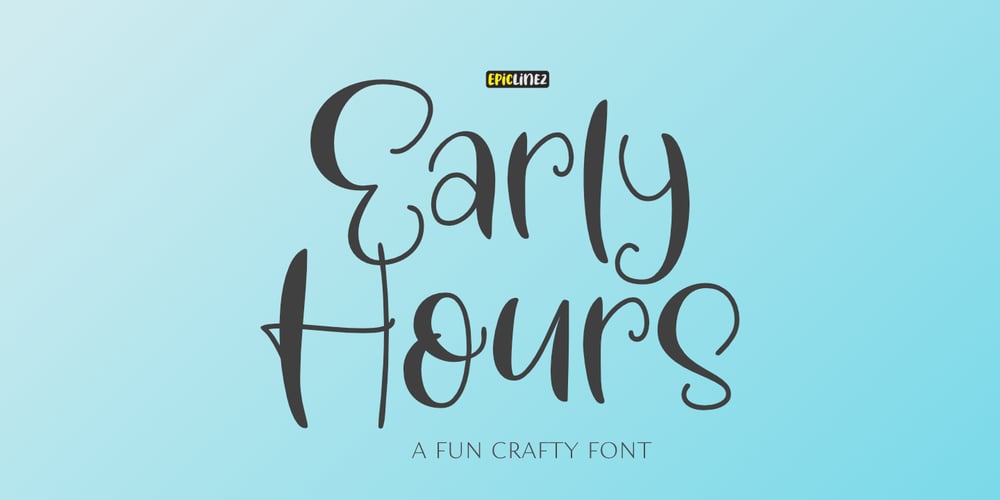
Early Hours Font Family was designed by Aldy Sidik and published by Epiclinez. Early Hours contains 1 styles and family package options. Early Hours is a fun crafty font. A little bit quirky, this font looks incredibly adept in a wide variety of contexts, such as children’s craft, teaching material, quotes, apparel, or any other design that needs a touch of fun and playfulness.The font Early Hours contains 203 glyphs, supporting 66 languages from Africa, Albanian to English, and Zulu. The font Early Hours contains 8 ligatures in 1 OpenType feature.Thank You